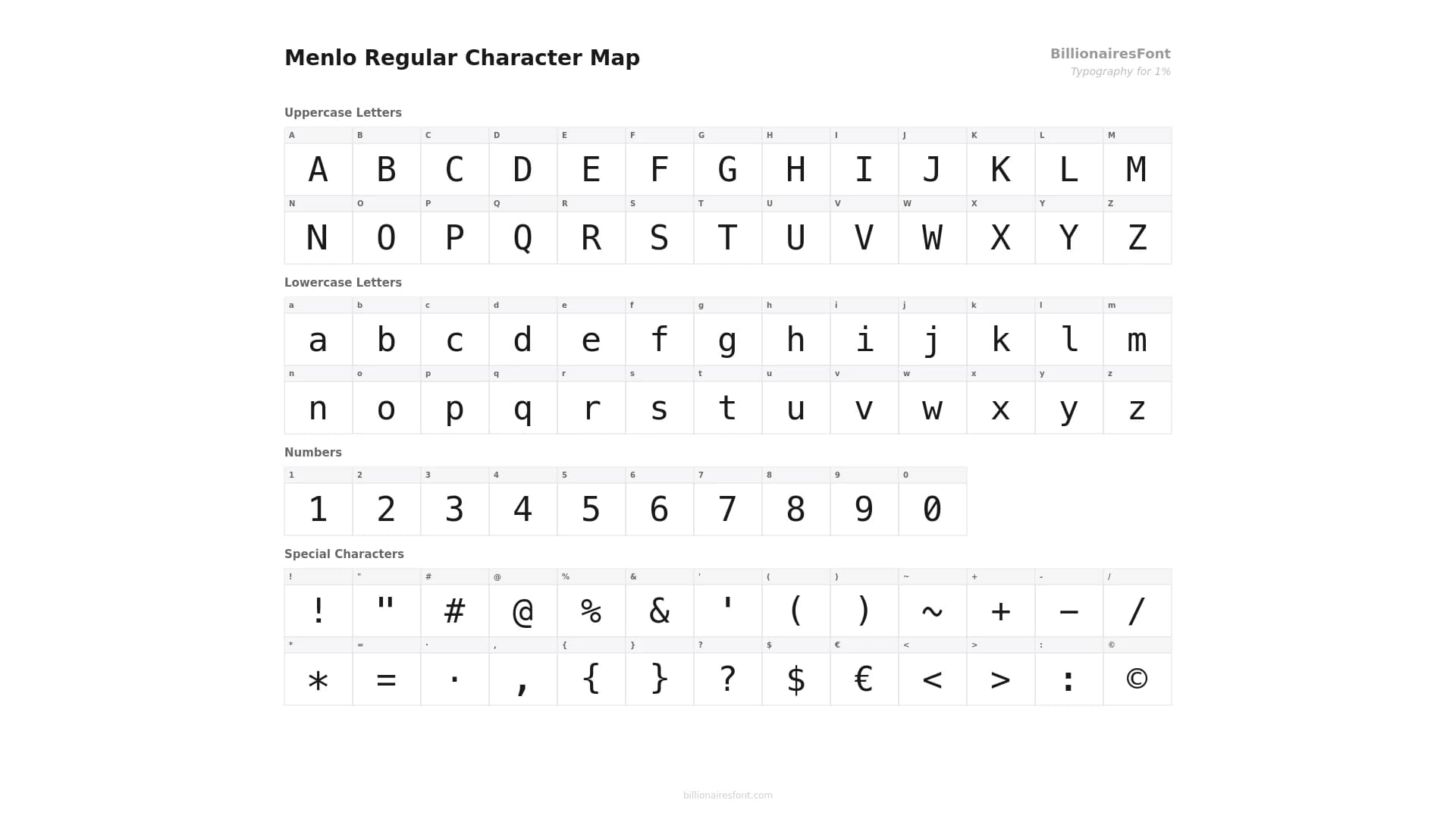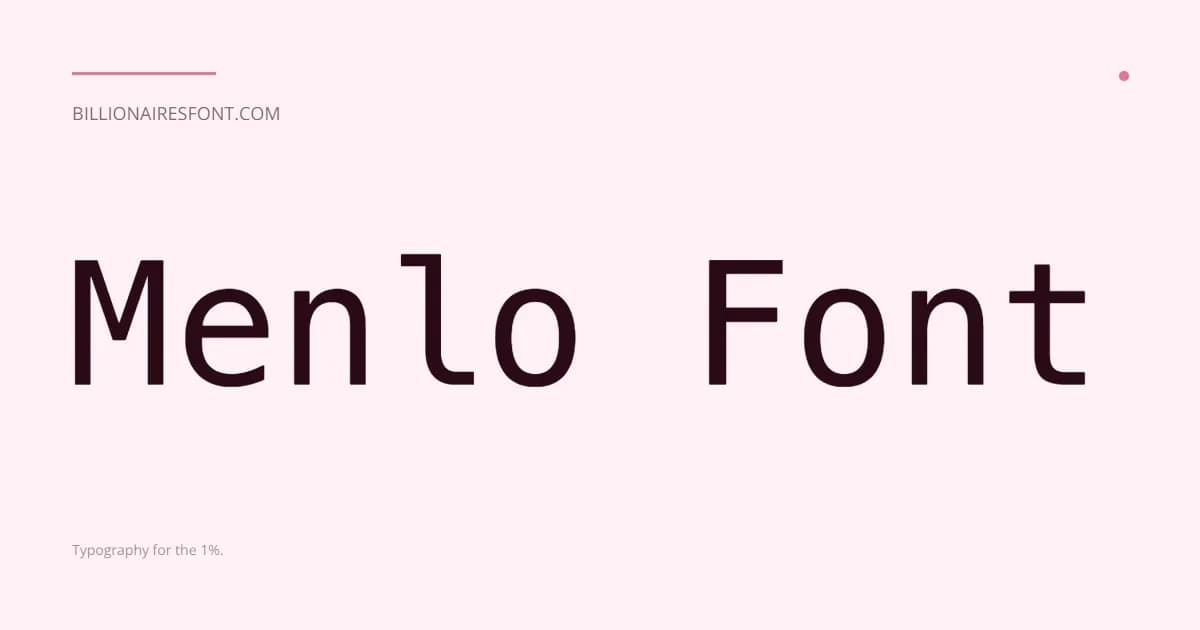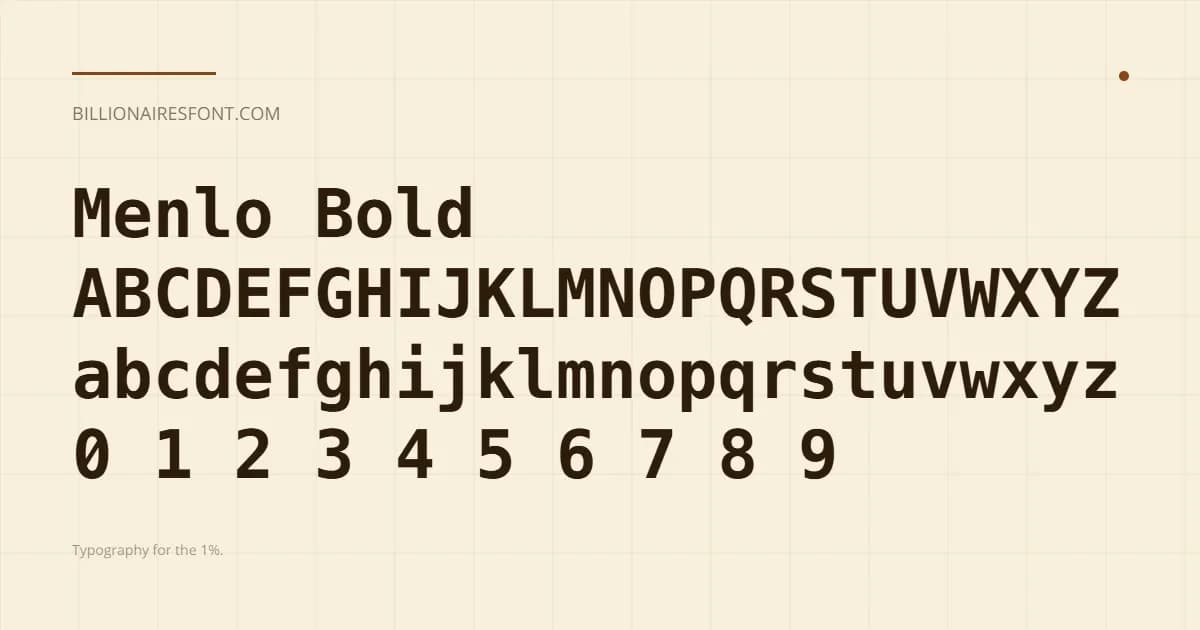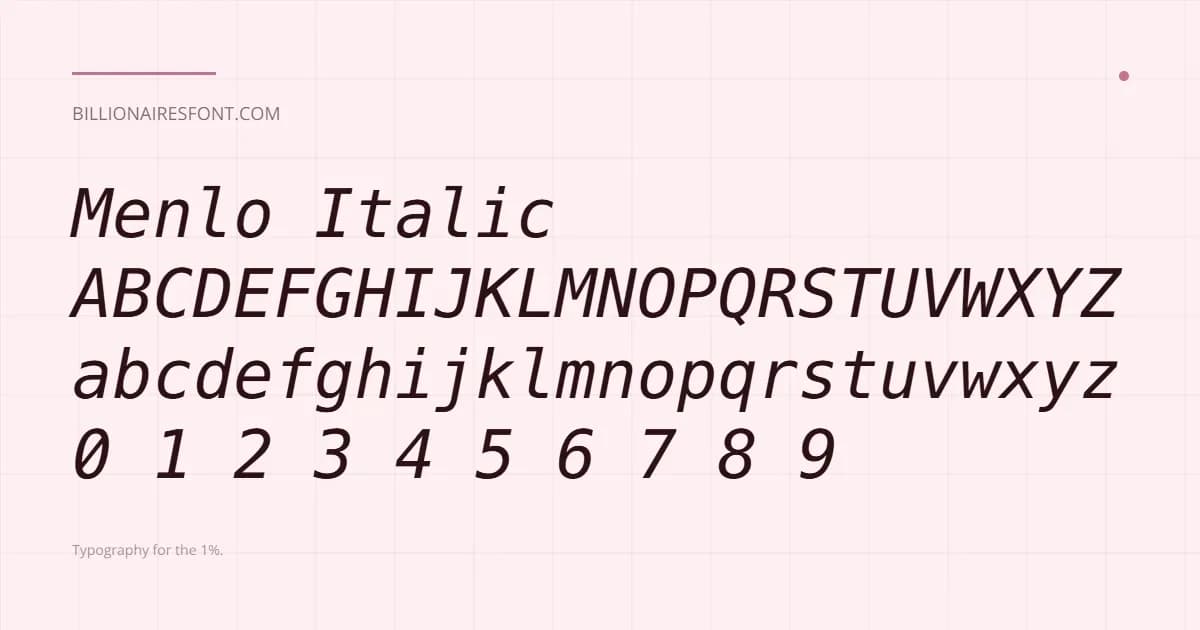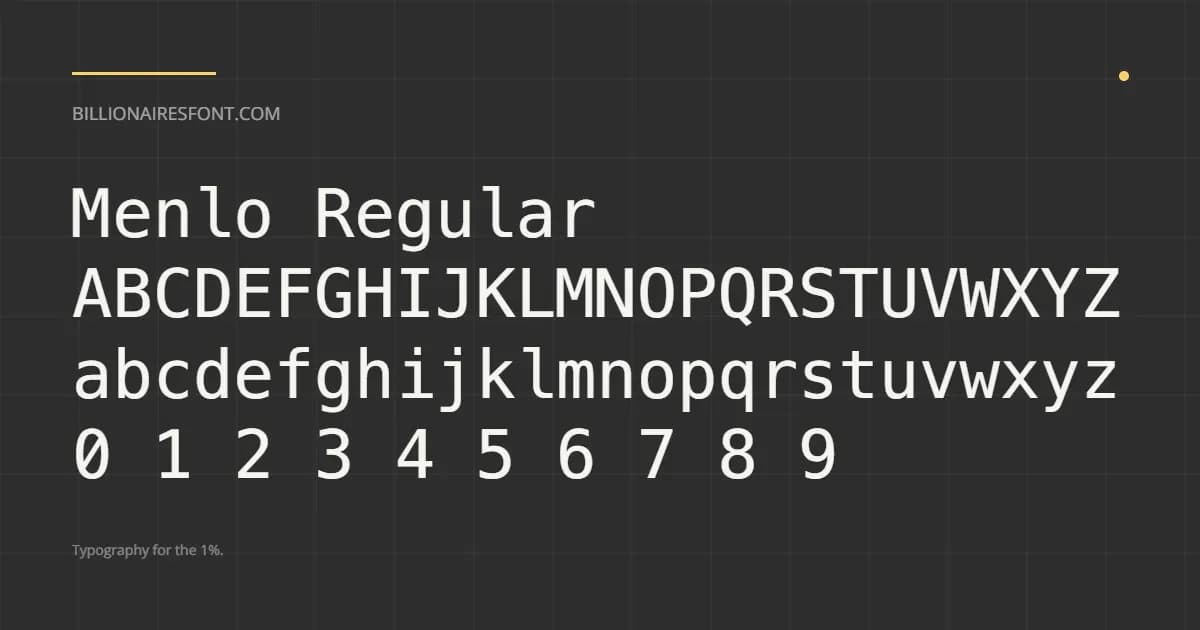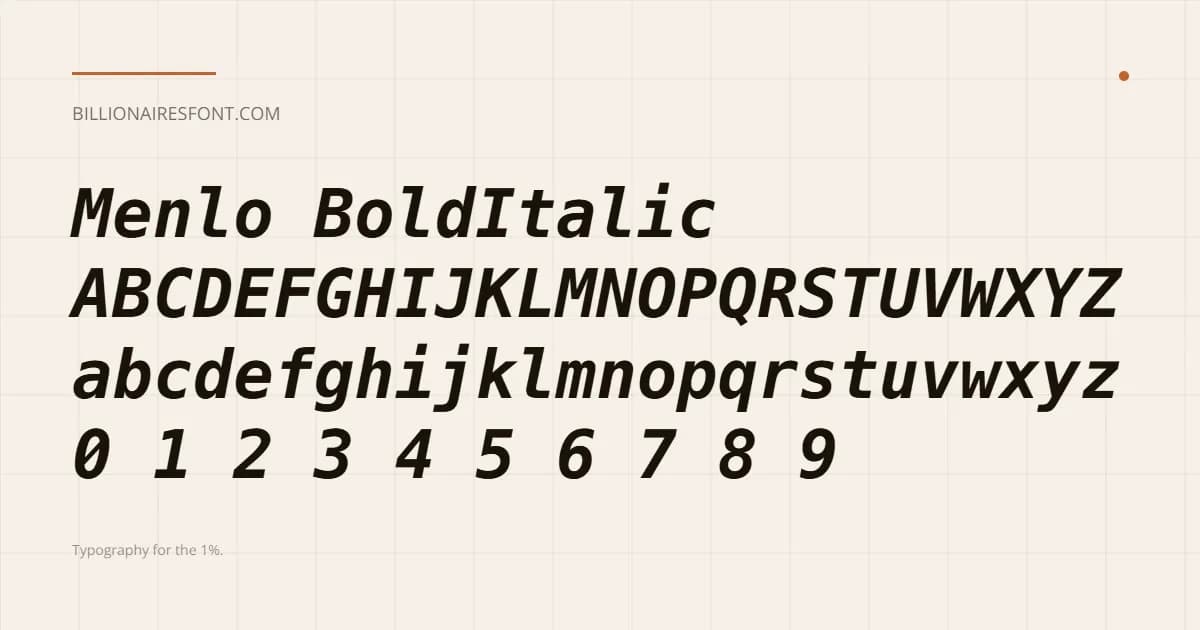
Menlo is a monospace sans-serif built for code editors and terminal interfaces, with distinct letterforms that keep easily confused characters like l, 1, and I clearly separated at small sizes. Based on the open-source Bitstream Vera and DejaVu Sans Mono families, Menlo ships in four styles — Regular, Bold, Italic, and Bold Italic — covering Latin, Cyrillic, and extended symbol sets used in programming and technical notation. The font is available here as a free download for personal use in TTF, WOFF, and WOFF2 formats. It pairs well with a humanist sans-serif like Open Sans or Lato for surrounding UI and body text. For a monospace alternative that is also free for commercial use, consider DejaVu Sans Mono or Source Code Pro from the monospace collection, or convert between formats using the Font Converter tool .